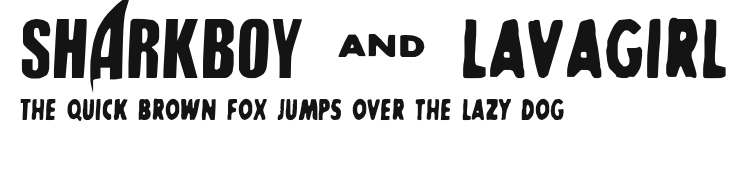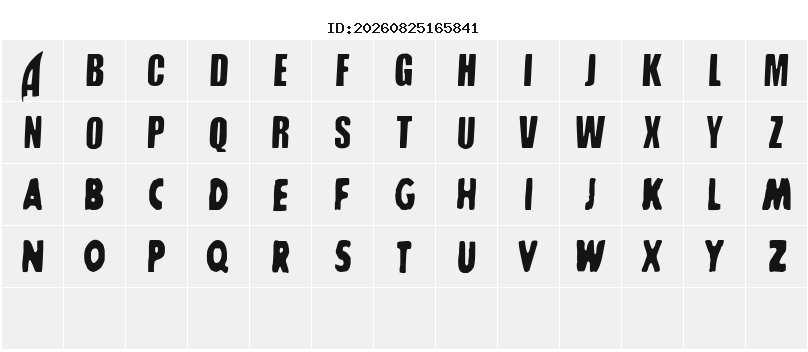
SHARKBOY & lavagirl Preview
• Font Name: SHARKBOY & lavagirl
• Font ID: SpideRaY: SHARKBOY & lavagirl Medium: 2011
• Full Font Name: SHARKBOY & lavagirl Medium
• PostScript Name: SHARKBOY&lavagirl-Medium
• Character Count: 119
• Designer: SpideRaY
• Manufacturer: SpideRaY
About SHARKBOY & lavagirl.ttf
SHARKBOY & lavagirl.ttf is a modern, elegant sans-serif font designed for ultimate readability and visual harmony. Perfect for branding, headlines, web design, and print materials.